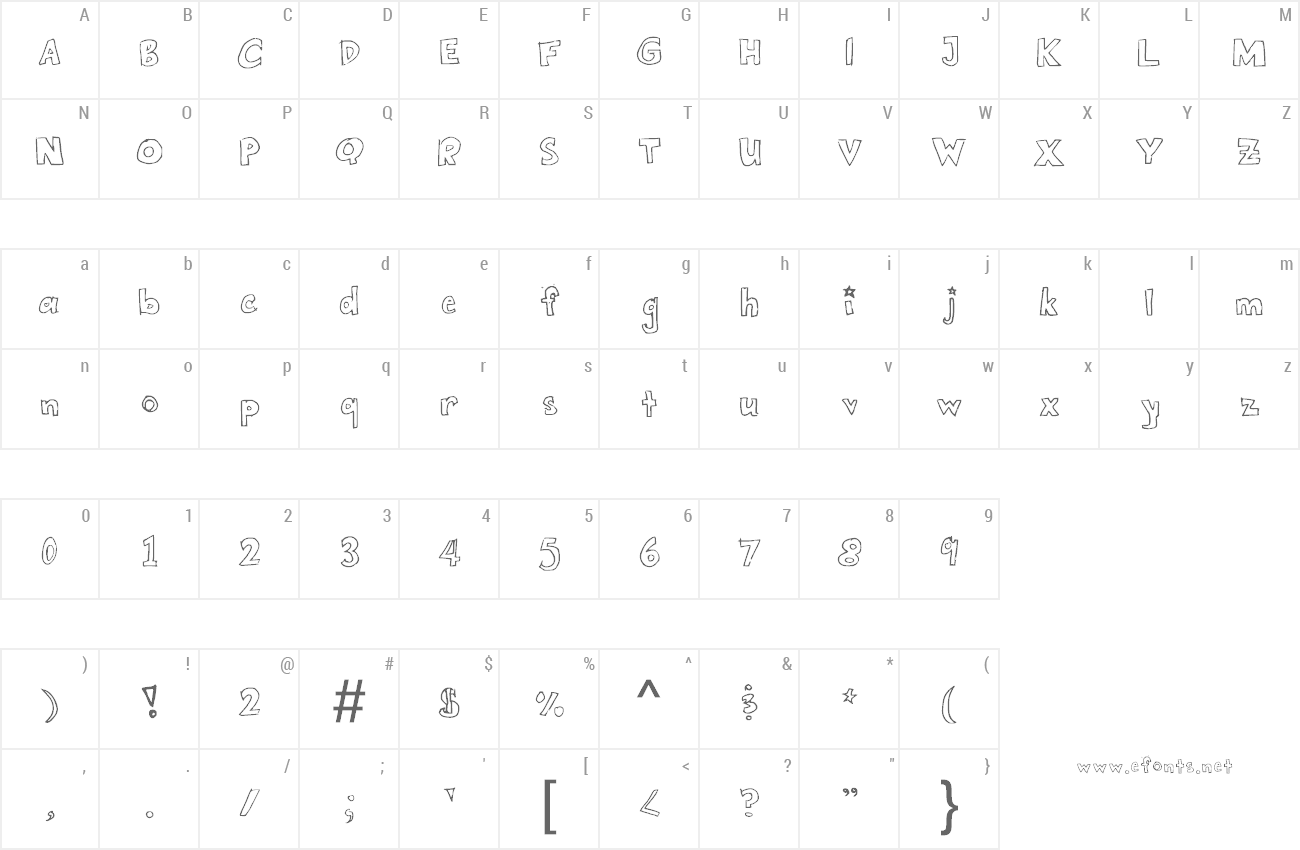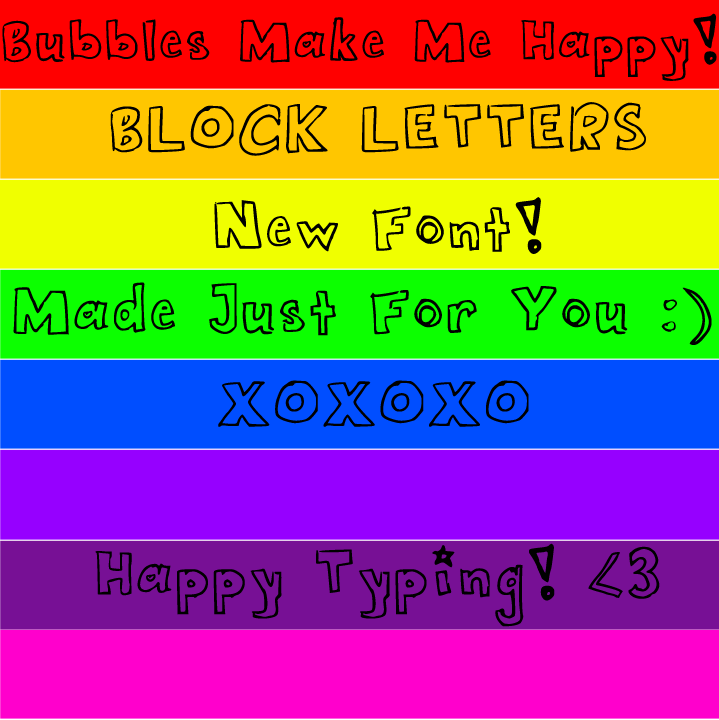
Preview and download Bubbles Make Me Happy Font. Created by Patricia Morreale in Fancy Cartoon styles with Free for personal use license.
| Block Letters are so much fun! Feel free to use but let me know before you publish or anything :) Thank you! Happy Typing! |